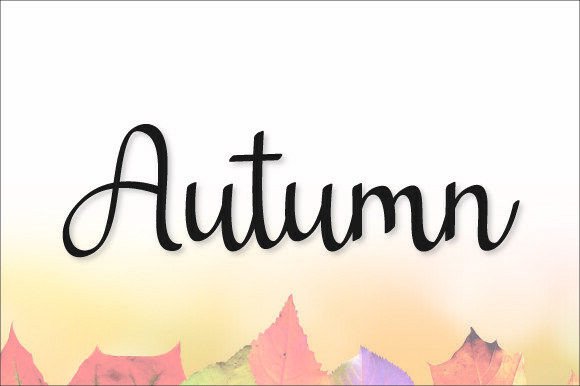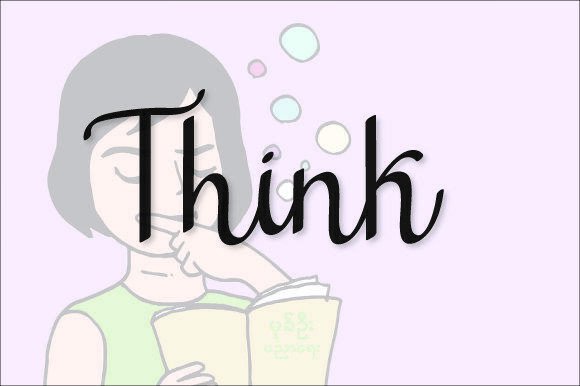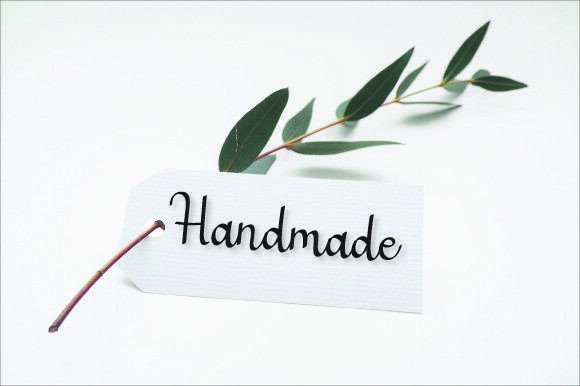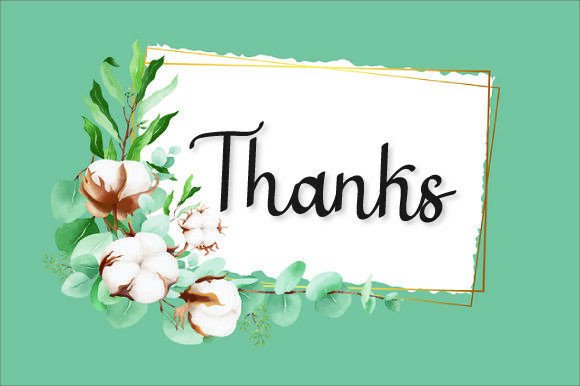
Bear Font: The Ultimate Quirky Script for Romantic and Festive Designs
Are you tired of using the same old fonts for your designs? Look no further than Bear Font, a charming and unique quirky script handwritten font that’s perfect for adding a touch of warmth and playfulness to your projects. With its smooth strokes and playful curves, Bear Font is ideal for creating romantic and festive designs that will capture the hearts of your audience.
The Characteristics of Bear Font
Bear Font is a one-of-a-kind font that boasts a range of characteristics that make it perfect for designers and crafters. Its key features include:
- Playful curves: Bear Font’s curves are smooth and playful, giving it a whimsical feel that’s perfect for festive designs.
- Smooth strokes: The font’s strokes are smooth and flowing, creating a sense of continuity and harmony.
- Handwritten feel: Bear Font has a distinctly handwritten feel, making it perfect for designs that require a personal touch.
- Quirky and unique: This font is truly one-of-a-kind, with a quirky charm that’s sure to set your designs apart.
Perfect for Romantic and Festive Designs
Bear Font is the perfect choice for designers and crafters who want to create romantic and festive designs. Whether you’re working on a project for Valentine’s Day, Christmas, New Year, or Easter, this font brings a delightful touch that’s sure to capture the spirit of the occasion.
Imagine using Bear Font to create:
- Valentine’s Day cards: Add a touch of romance to your Valentine’s Day cards with Bear Font’s playful curves and smooth strokes.
- Christmas decorations: Use Bear Font to create festive Christmas decorations, such as garlands, gift tags, and more.
- New Year’s Eve invitations: Make your New Year’s Eve invitations stand out with Bear Font’s quirky charm.
- Easter egg designs: Add a playful touch to your Easter egg designs with Bear Font’s smooth strokes and playful curves.
Why Designers and Crafters Love Bear Font
Designers and crafters love Bear Font for a range of reasons, including:
- Easy to read: Despite its playful curves and smooth strokes, Bear Font is surprisingly easy to read, making it perfect for designs that require a clear message.
- Versatile: Bear Font is versatile enough to be used in a range of designs, from romantic and festive to playful and whimsical.
- Unique: This font is truly one-of-a-kind, making it perfect for designers and crafters who want to stand out from the crowd.
Tips for Using Bear Font
Here are some tips for getting the most out of Bear Font:
- Pair it with contrasting fonts: Pair Bear Font with contrasting fonts to create visual interest and add depth to your designs.
- Experiment with colors: Bear Font looks great in a range of colors, so don’t be afraid to experiment and find the perfect hue for your design.
- Use it for headings and titles: Bear Font is perfect for headings and titles, where its playful curves and smooth strokes can really shine.
Bear Font is a charming and unique quirky script handwritten font that’s perfect for designers and crafters who want to add a touch of warmth and playfulness to their designs. With its smooth strokes, playful curves, and handwritten feel, this font is ideal for romantic and festive designs. Whether you’re working on a project for Valentine’s Day, Christmas, New Year, or Easter, Bear Font brings a delightful touch that’s sure to capture the hearts of your audience.